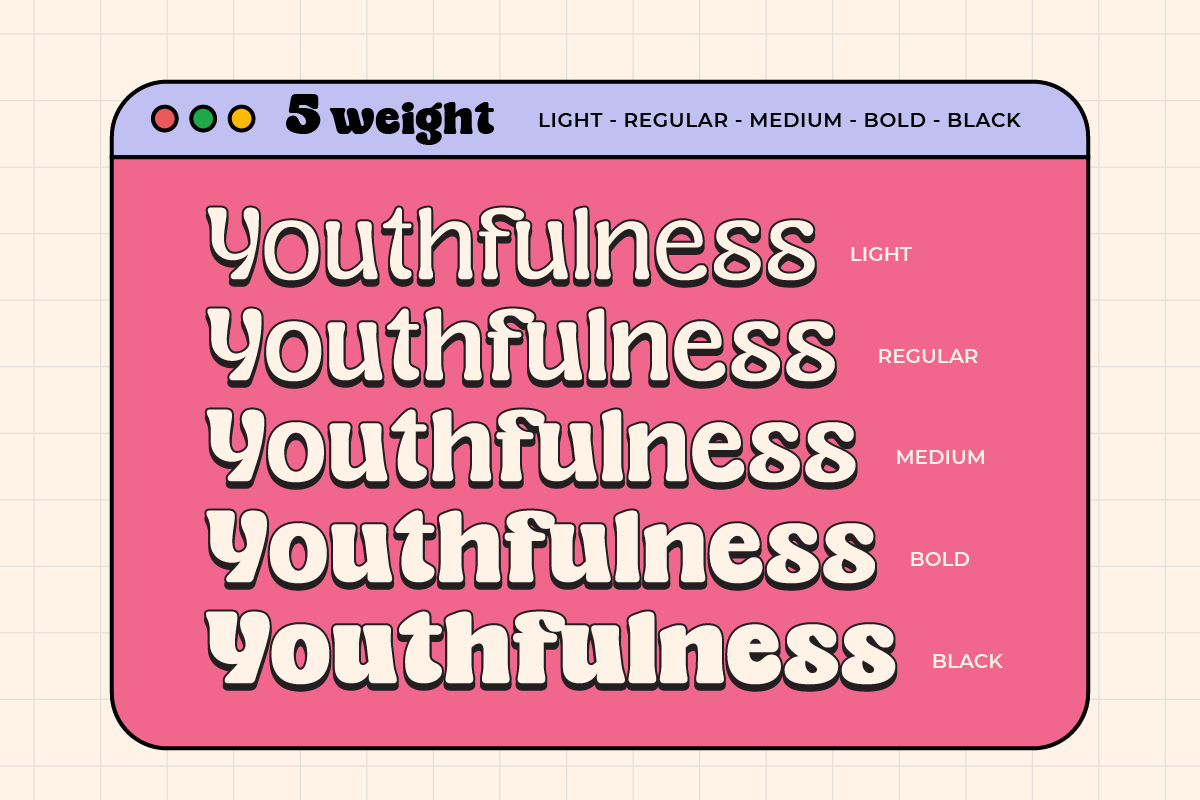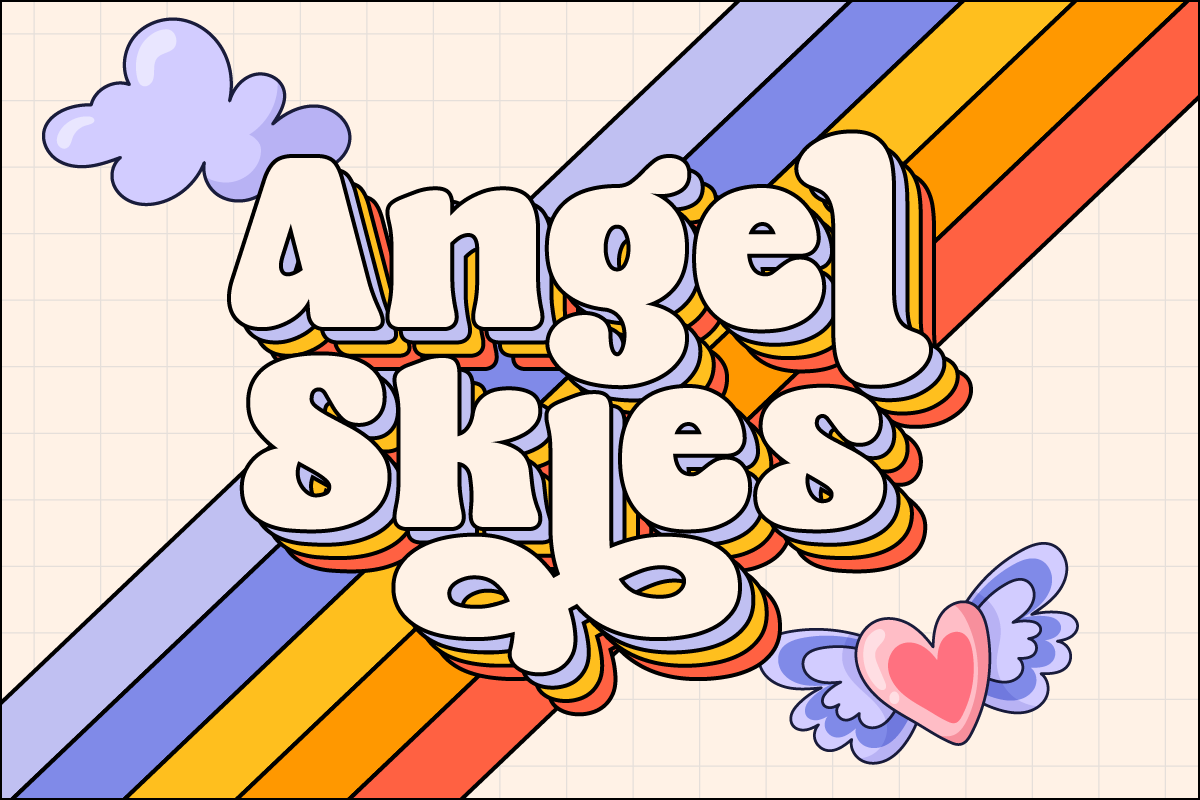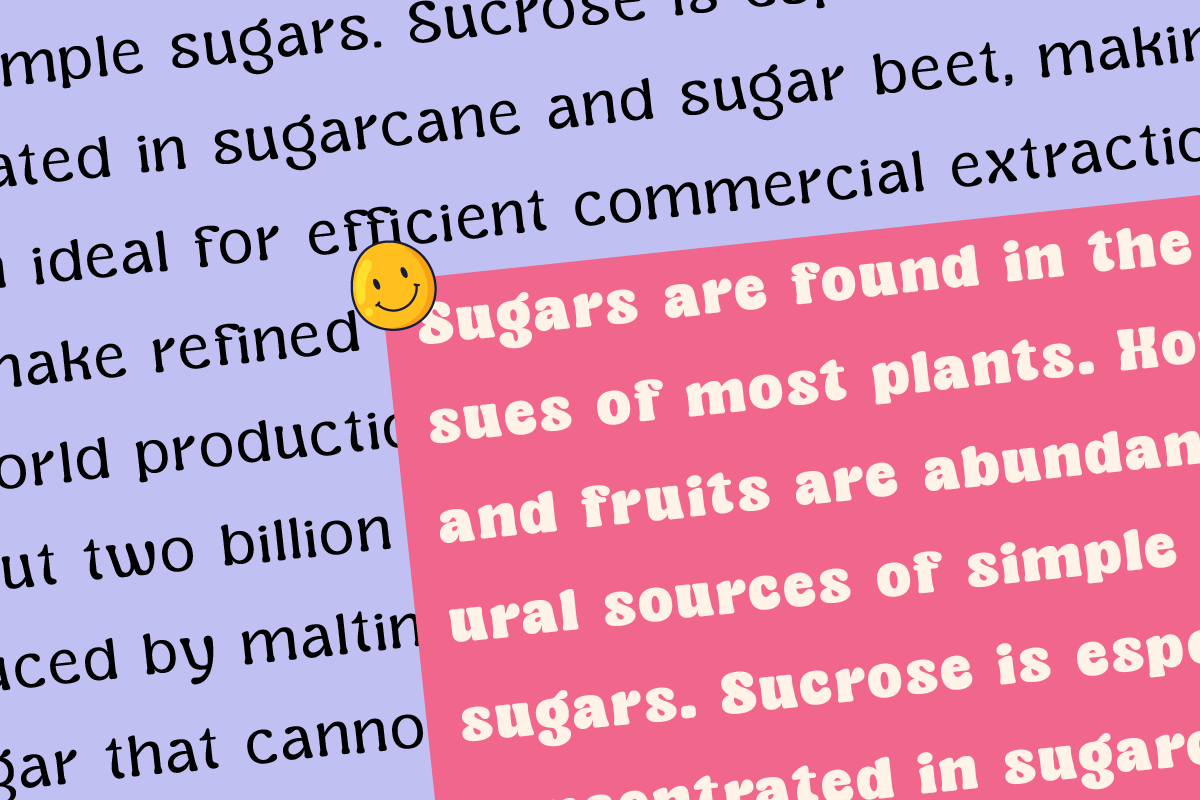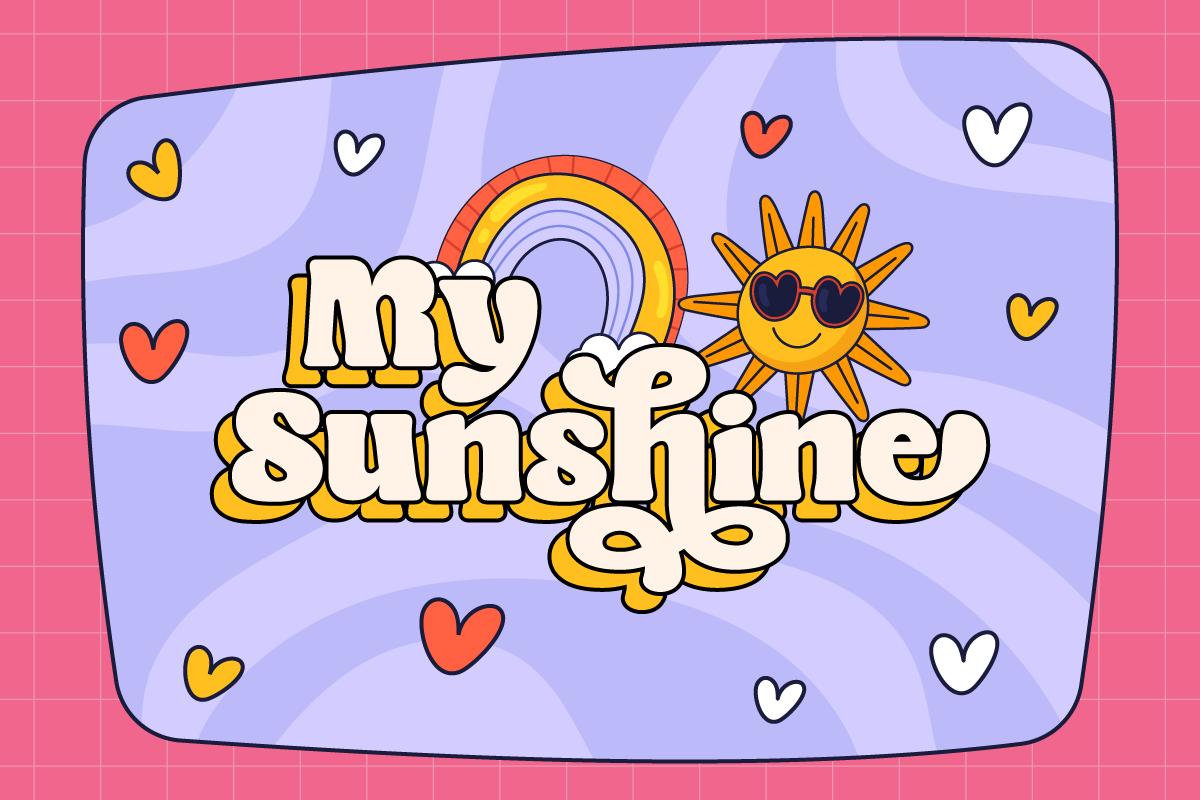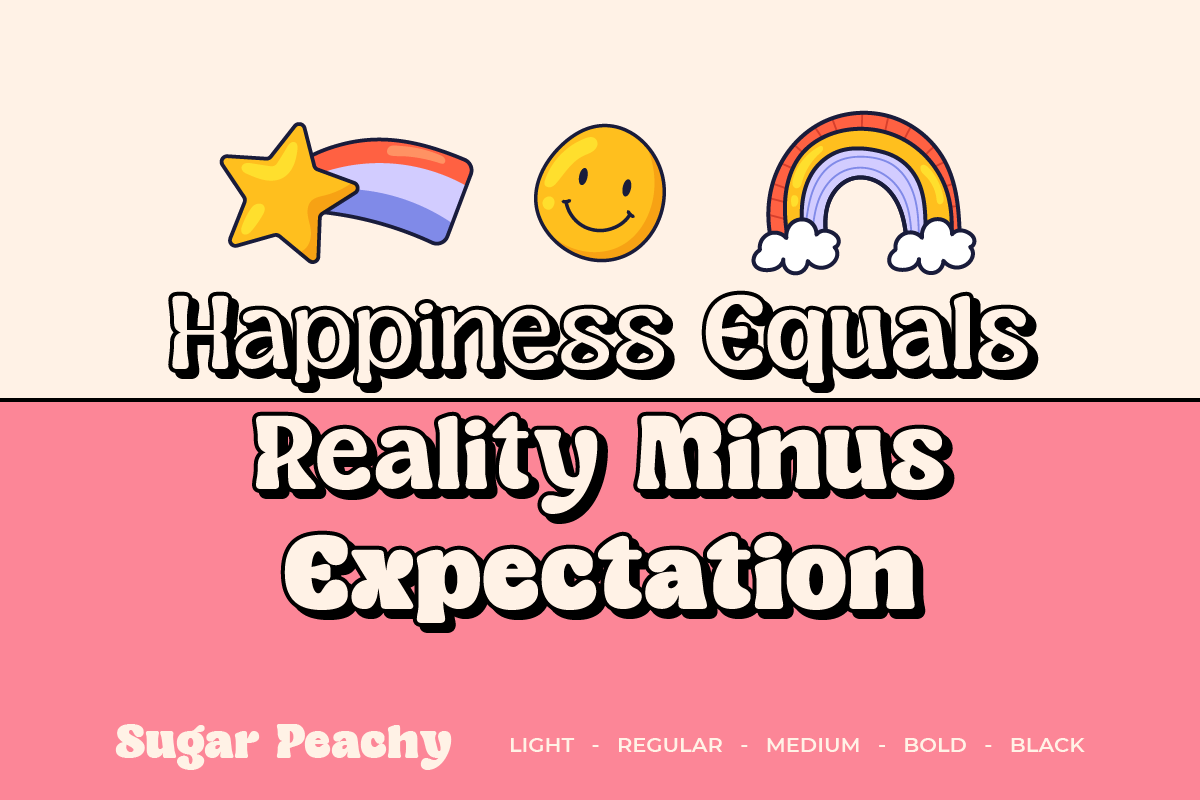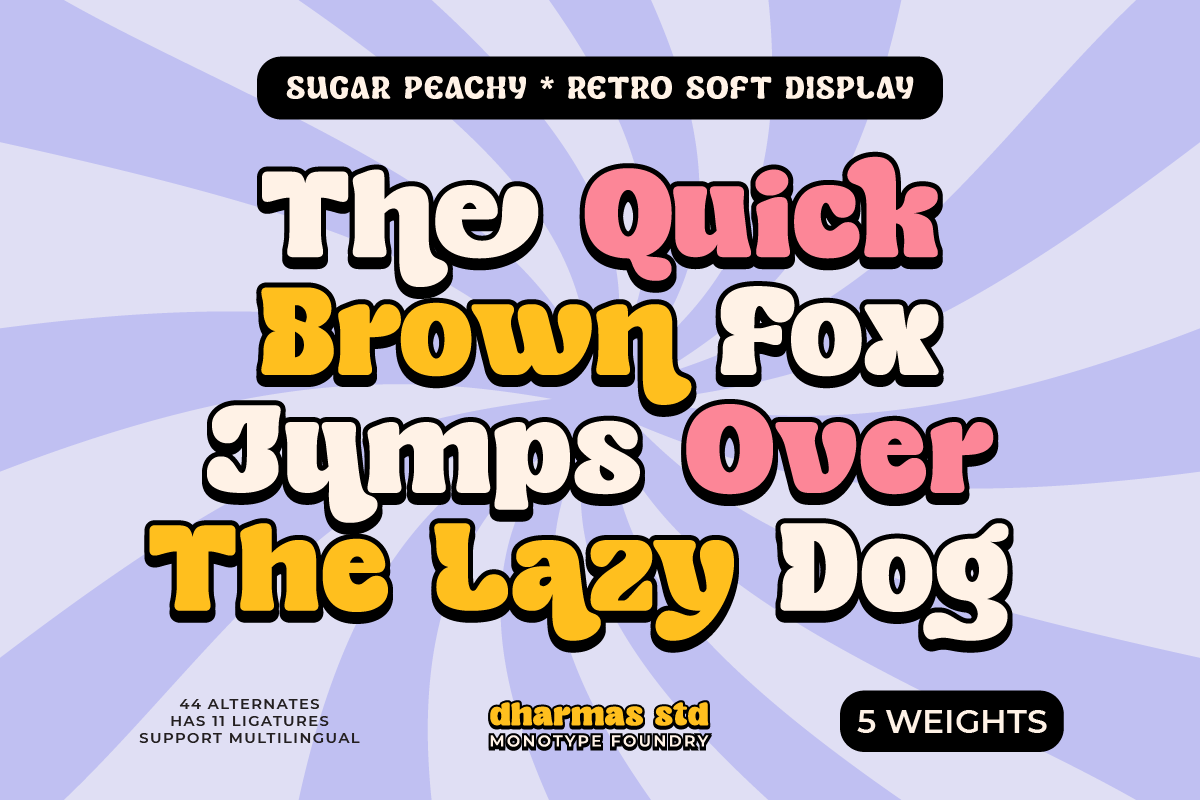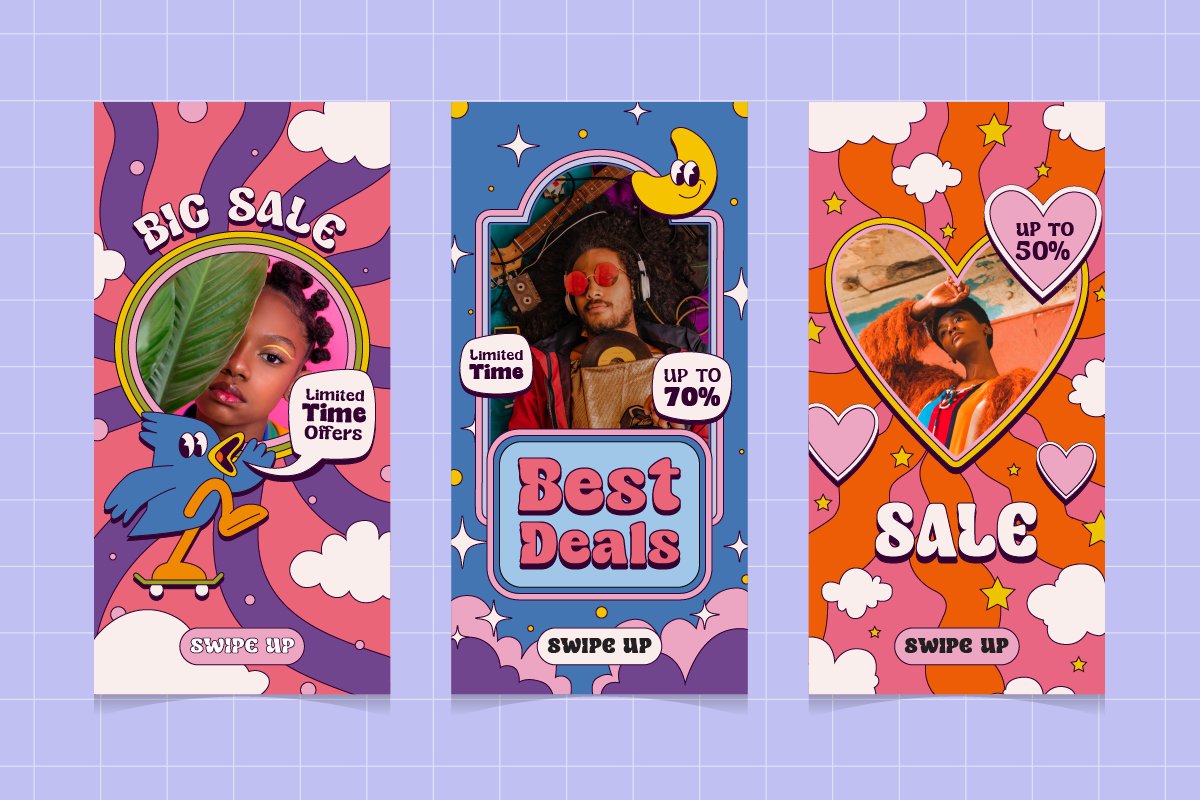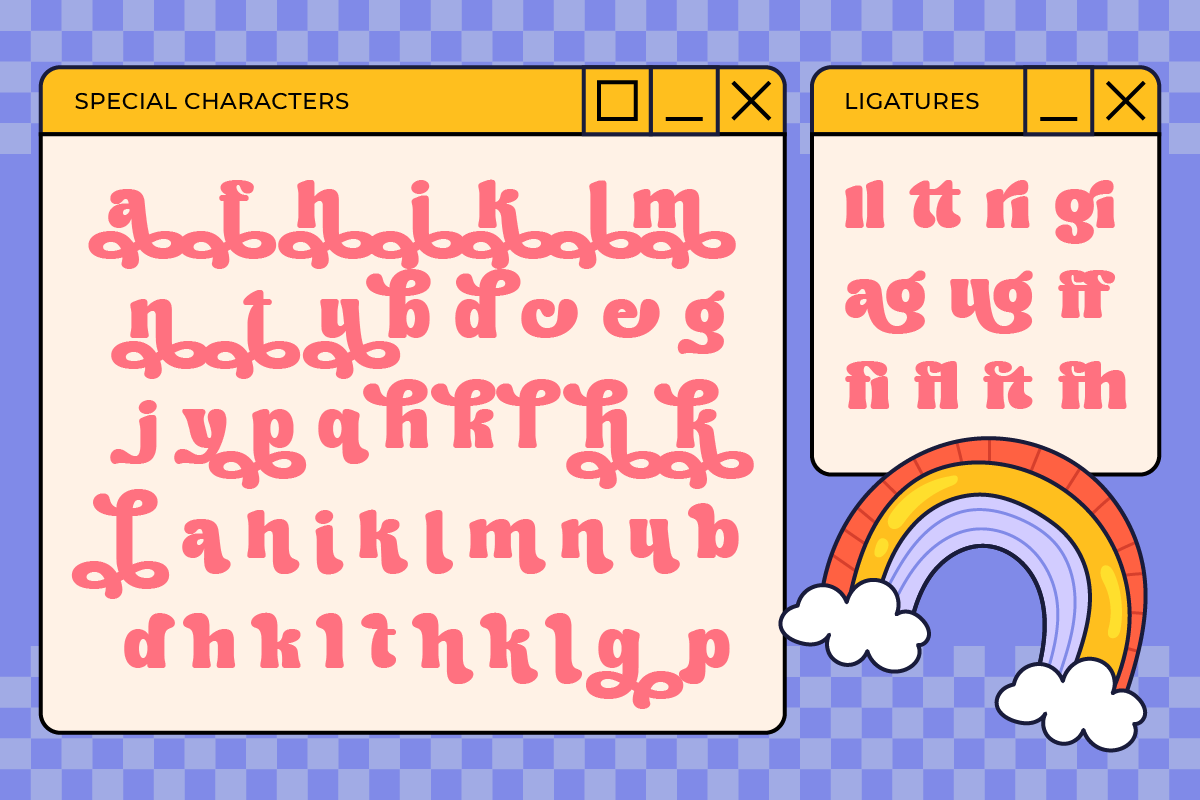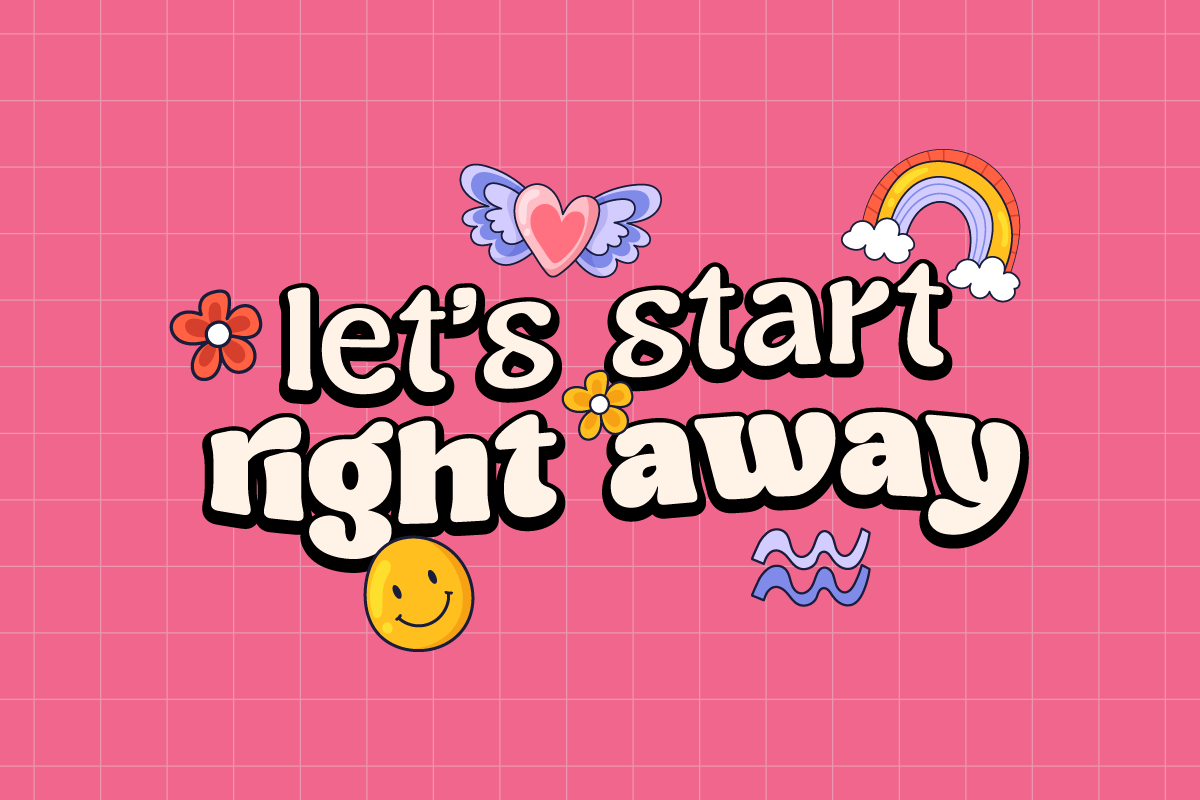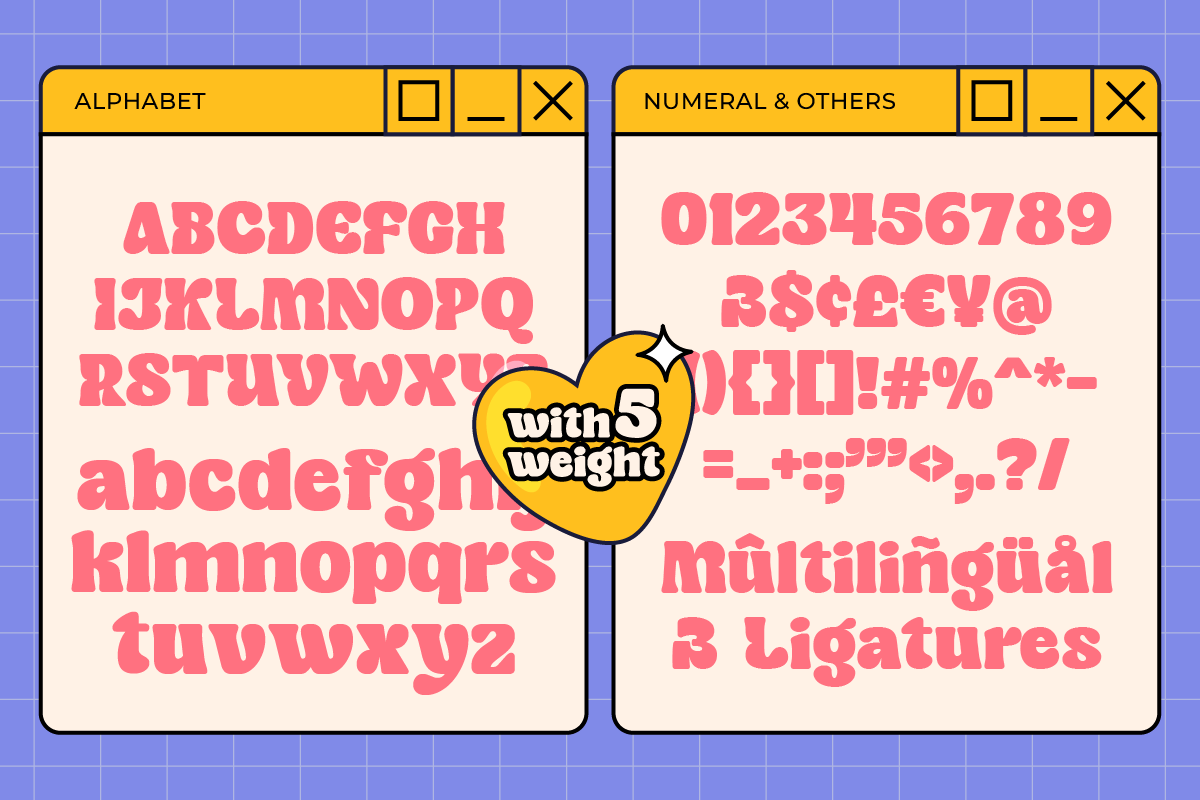
Sugar Peachy - Retro Soft Family
Introducing Sugar Peachy Retro Soft Display - a font that exudes happiness, uniqueness, and wonder!
This groovy display font has a retro 70s style with soft and chewy characteristics that are perfect for display, titling, and even logos or headers. With 5 styles ranging from thin to black, you can use it for short text or large displays.
Plus, Sugar Peachy has special features like alternates and ligatures that make it ideal for all kinds of design purposes like branding, product design, websites, posters, stickers, merchandise, and more!
Alternates and Ligatures
Give your design projects that fun, playful edge with Sugar Peachy!